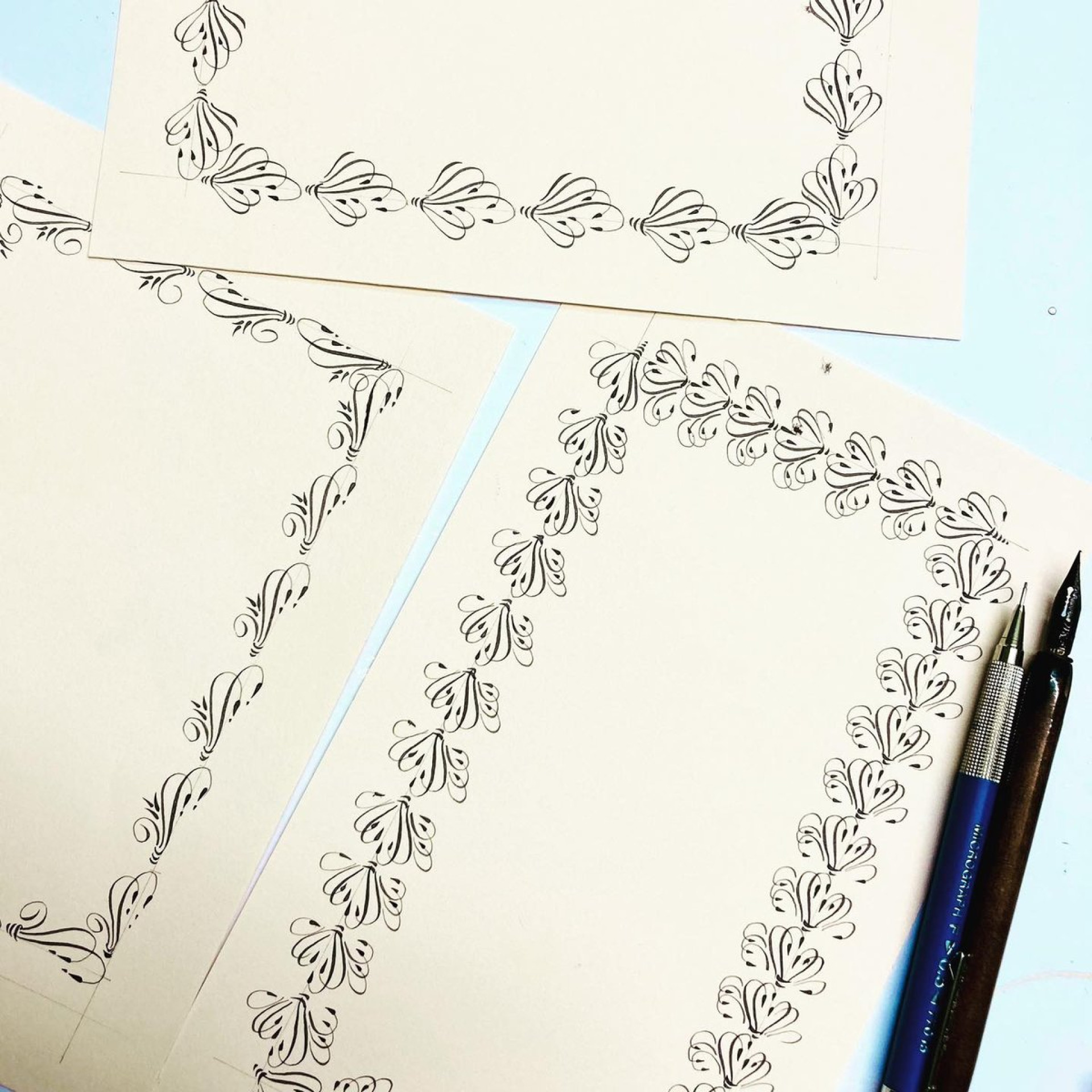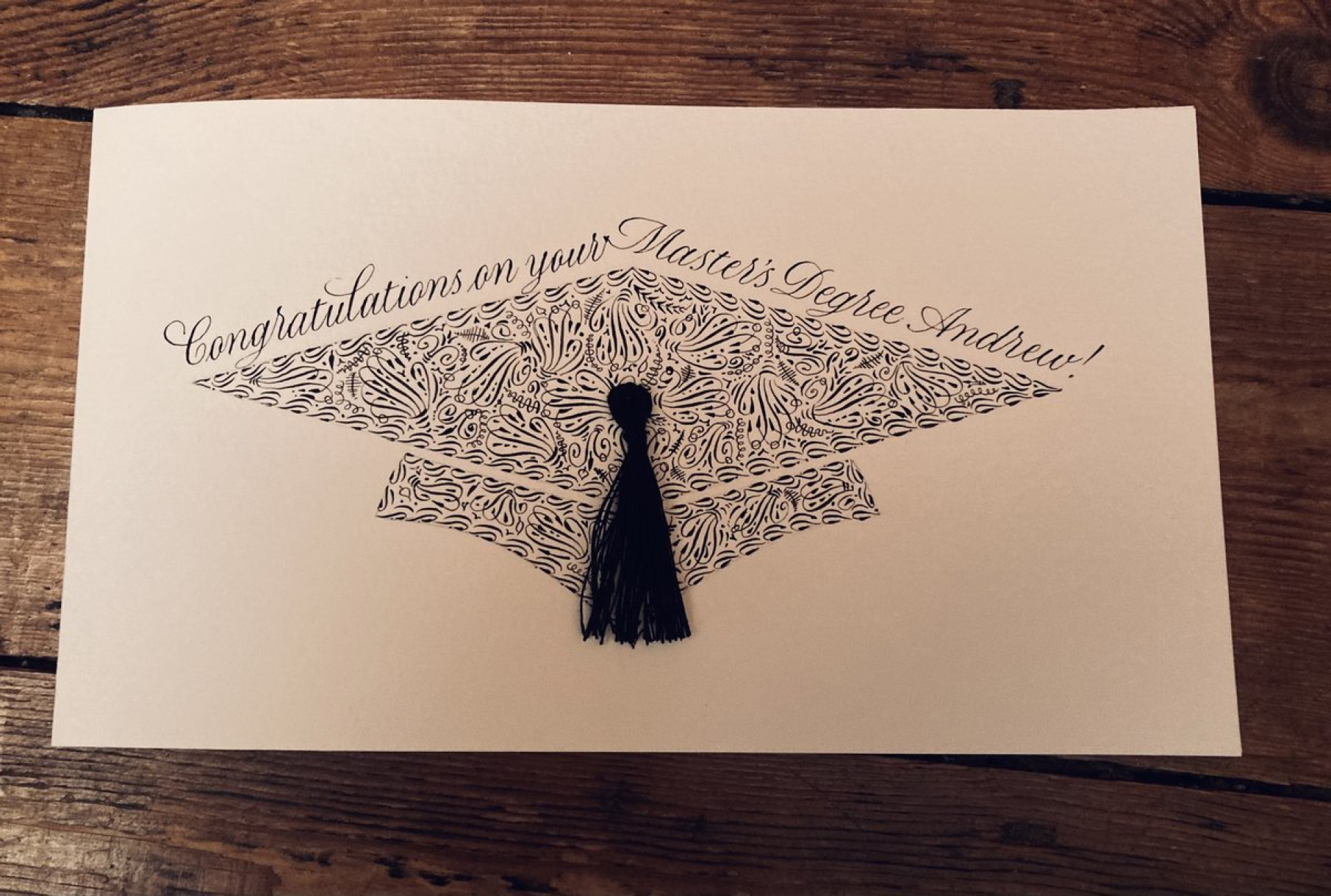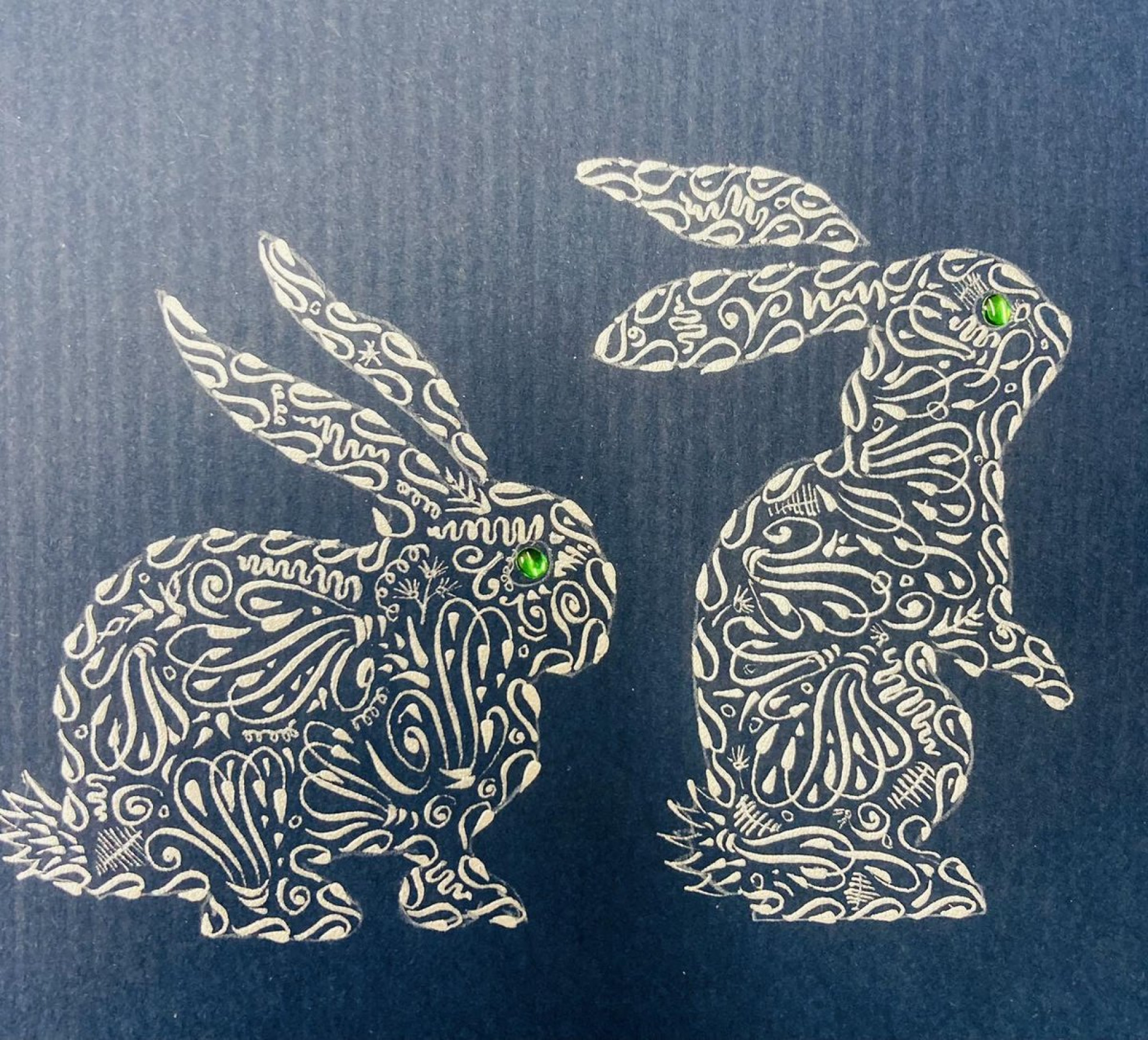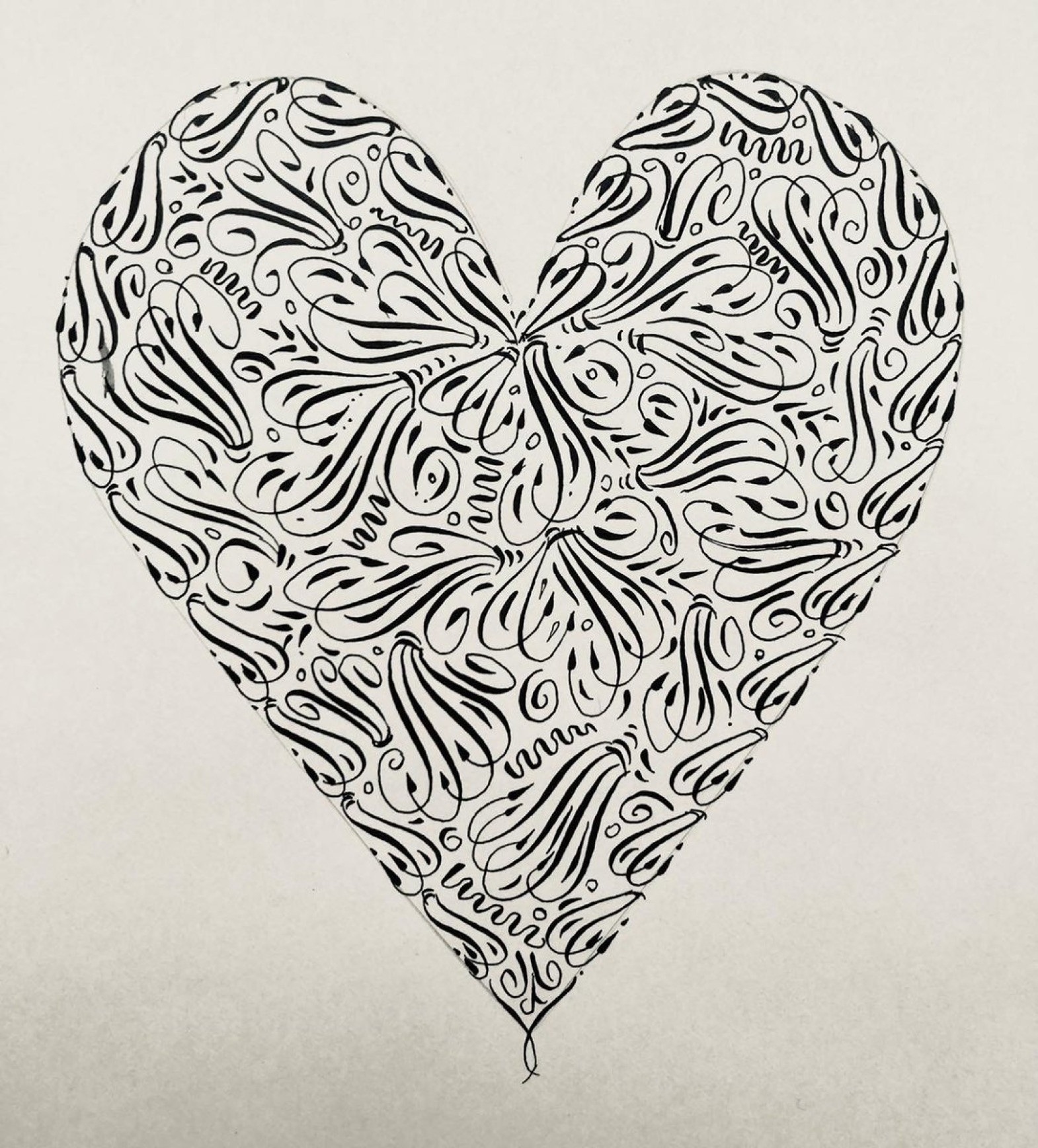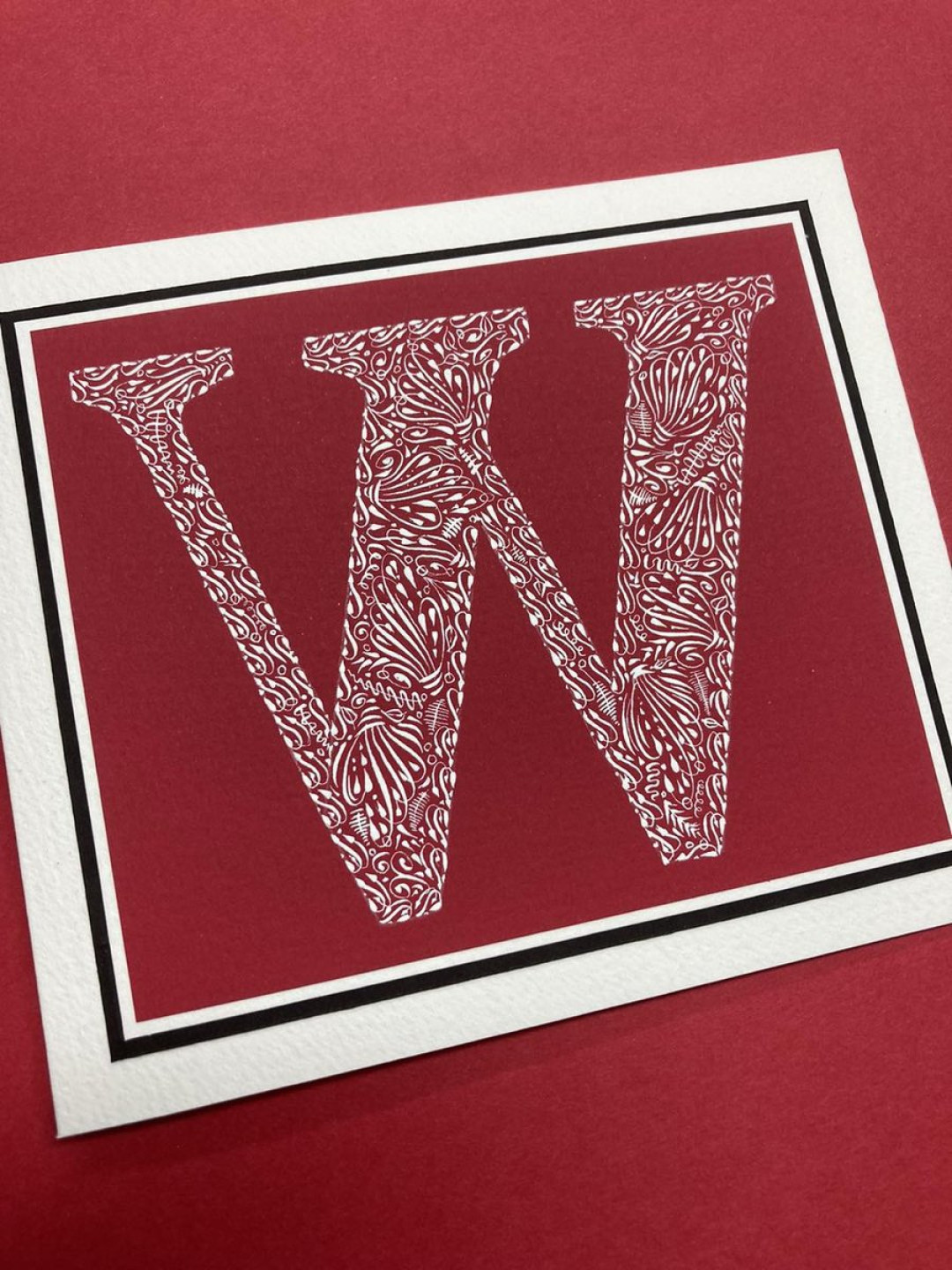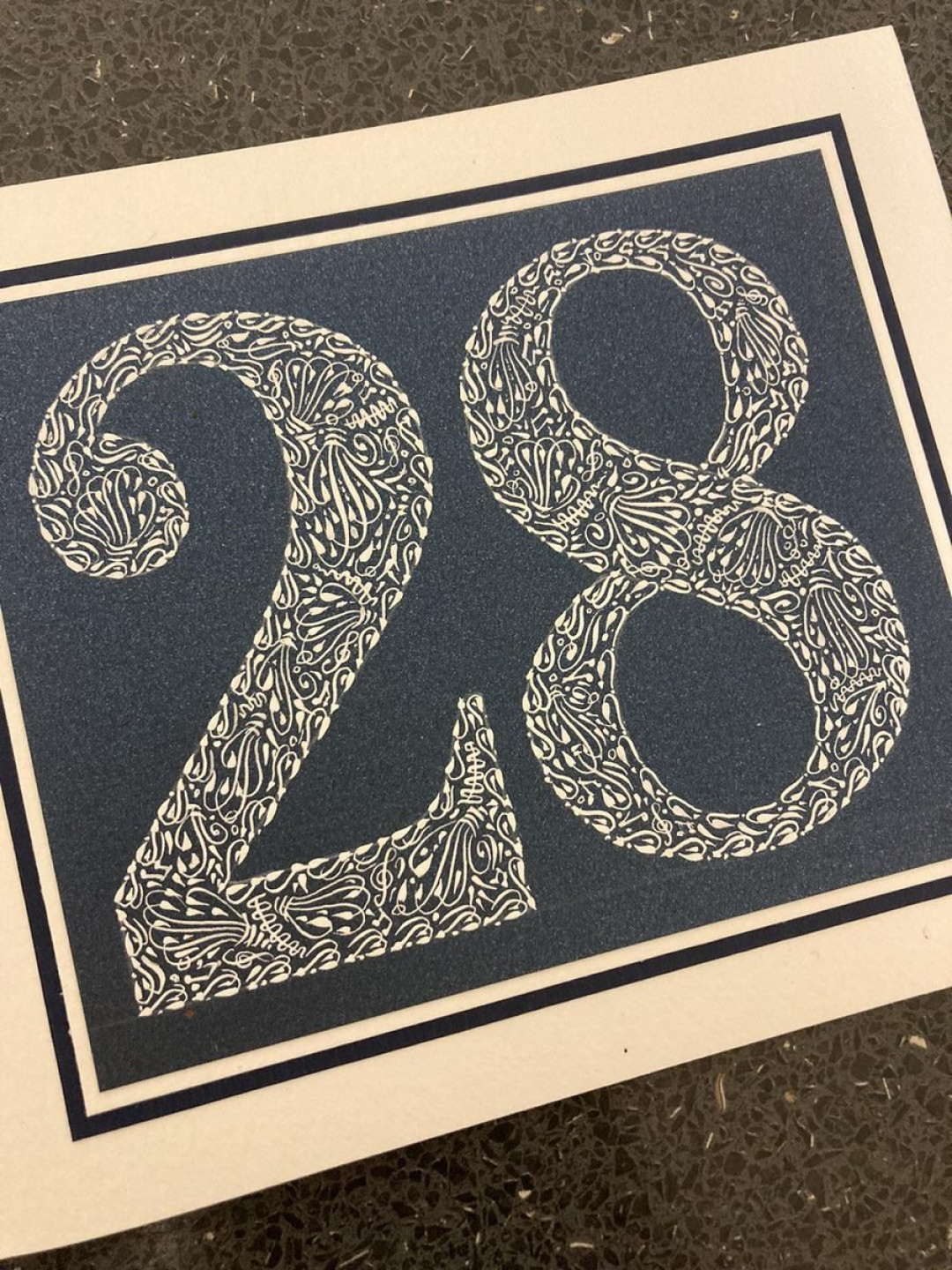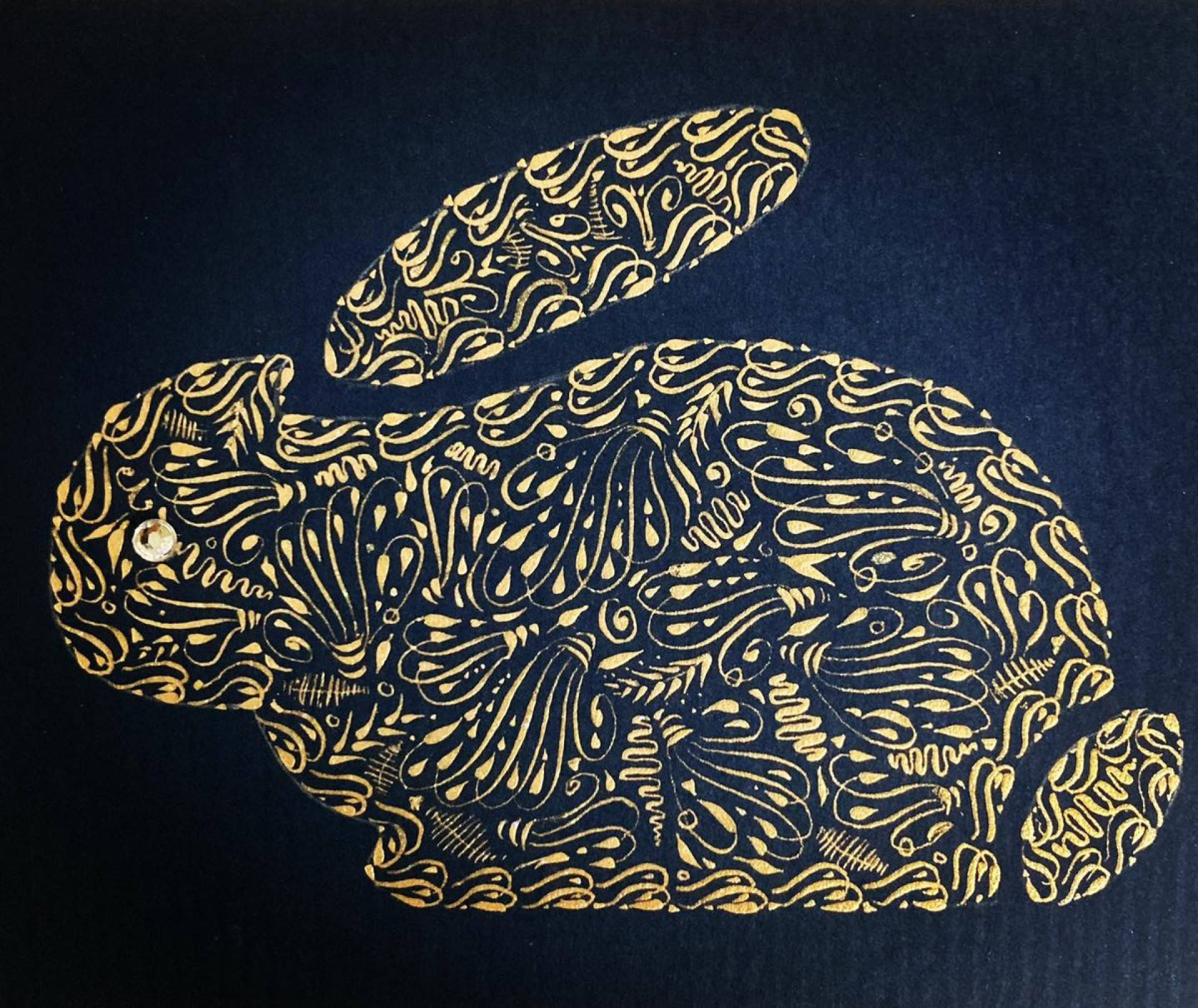
Decorative Flourishing - a zoom class with Joy Daniels
More flourishing fun with Joy exploring the versatility of the pointed nib – working within a shape, or around a border, or freely made decorations – all using the same shapes and marks.
Inspired by Traci Thompson, Joy has adapted this technique to be able to share with others – if you’ve enjoyed the colourful Pen Patterns course, this is another technique to add to your repertoire – sticking to one colour but using different shapes - black on white, light on dark, or any colour you choose.